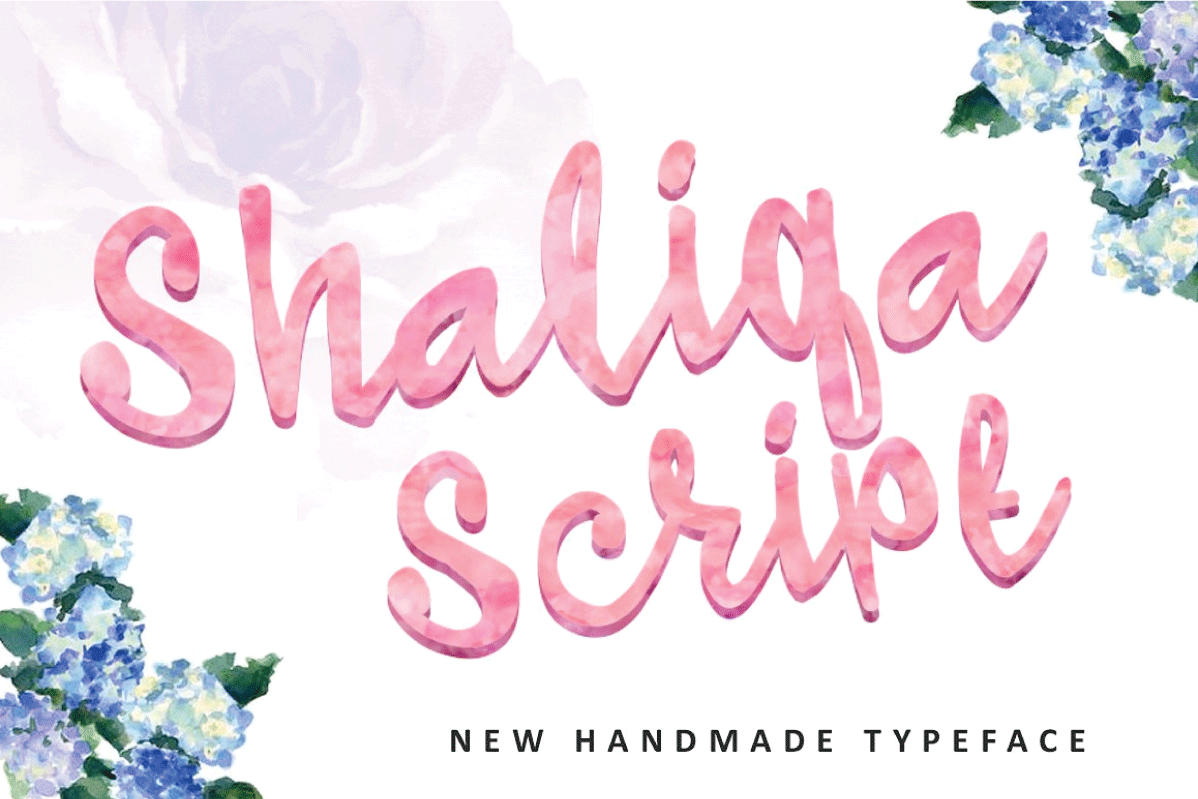
Shaliqa Script
Introducing Shaliqa Script
Shaliqa Script is a beautiful handmade brush script give the natural looks.100 glyphs .
Great for Apparel Brand, any greeting cards, book cover, Painting
design style, or any design that needs natural and personal touch.